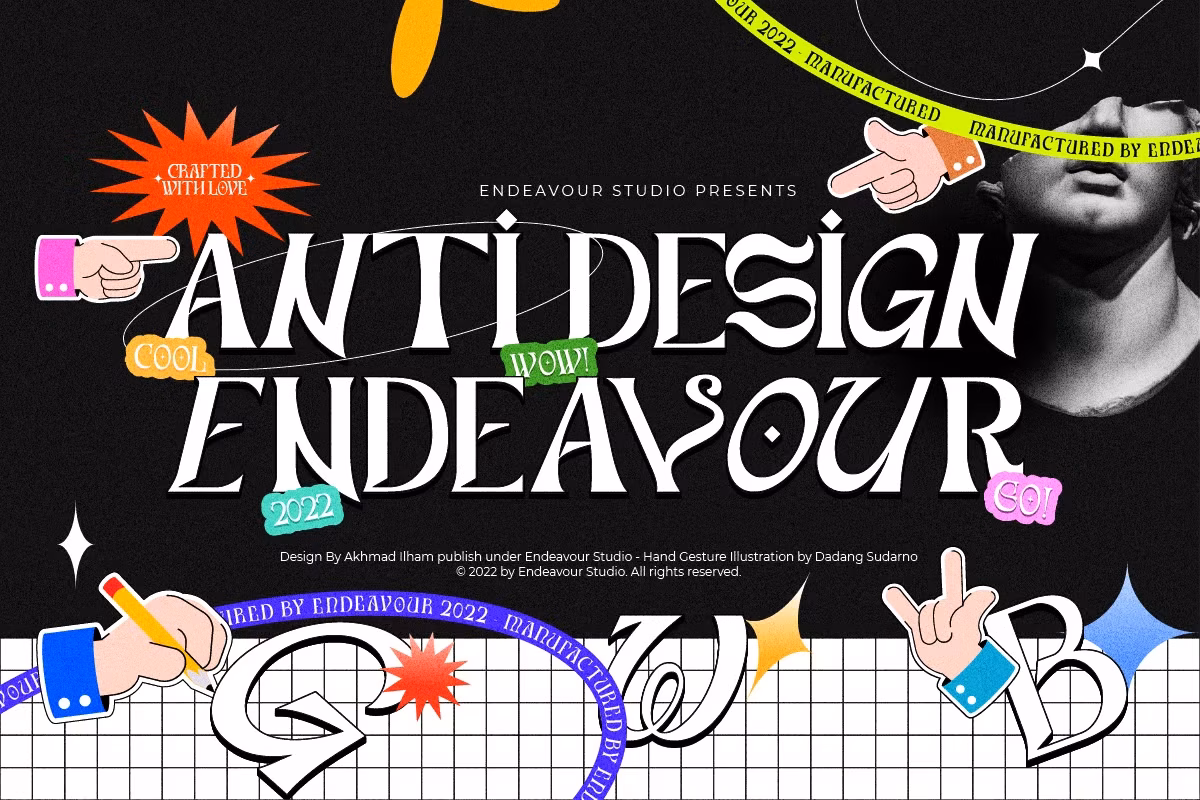
Anti Design Endeavour Display Font Free Download is a bold, edgy, and experimental typeface designed to make a strong visual impact. With its unique, deconstructed letterforms and strong contrasts, this font is perfect for modern branding, poster designs, album covers, and projects that embrace an unconventional, anti-establishment aesthetic. It brings a rebellious and creative flair to any design, challenging traditional typography norms.
Using the Anti Design Endeavour Display Font Free Download adds an avant-garde touch to your work. Whether you're creating graphics for a music festival, branding a cutting-edge brand, or designing a disruptive ad campaign, this font ensures your designs stand out and make a statement.